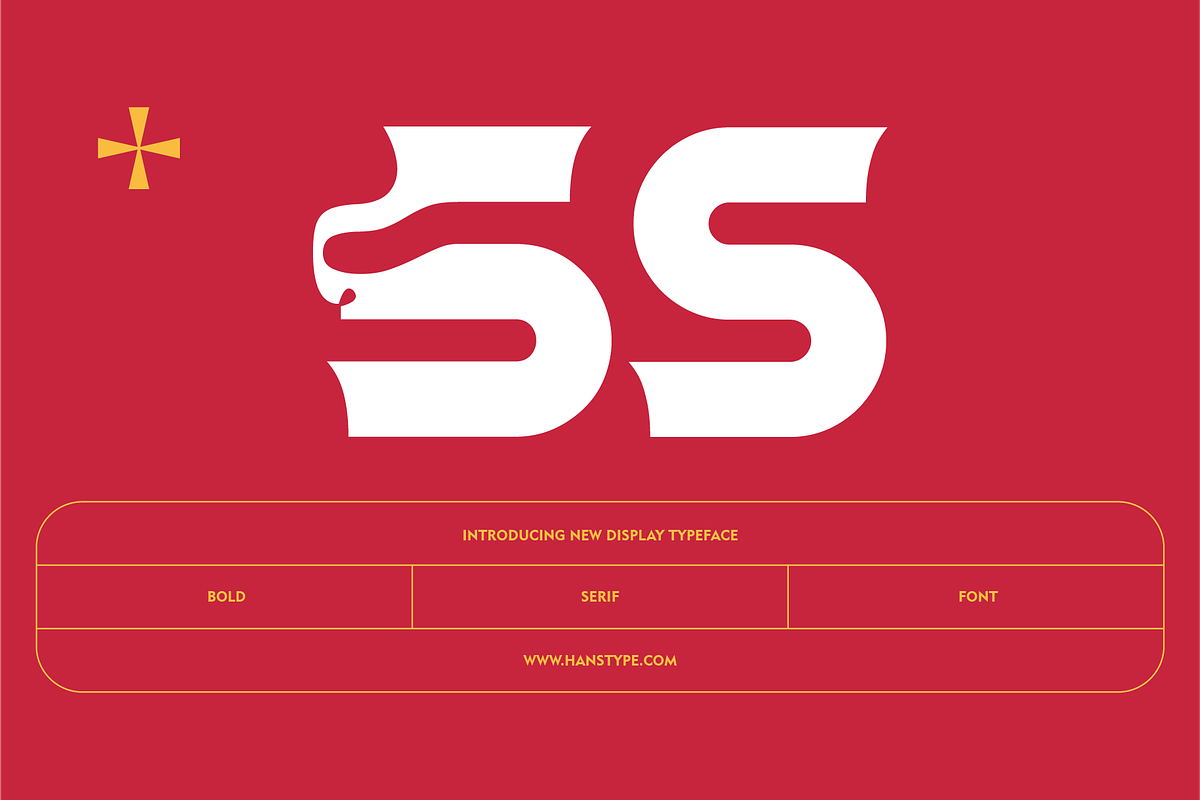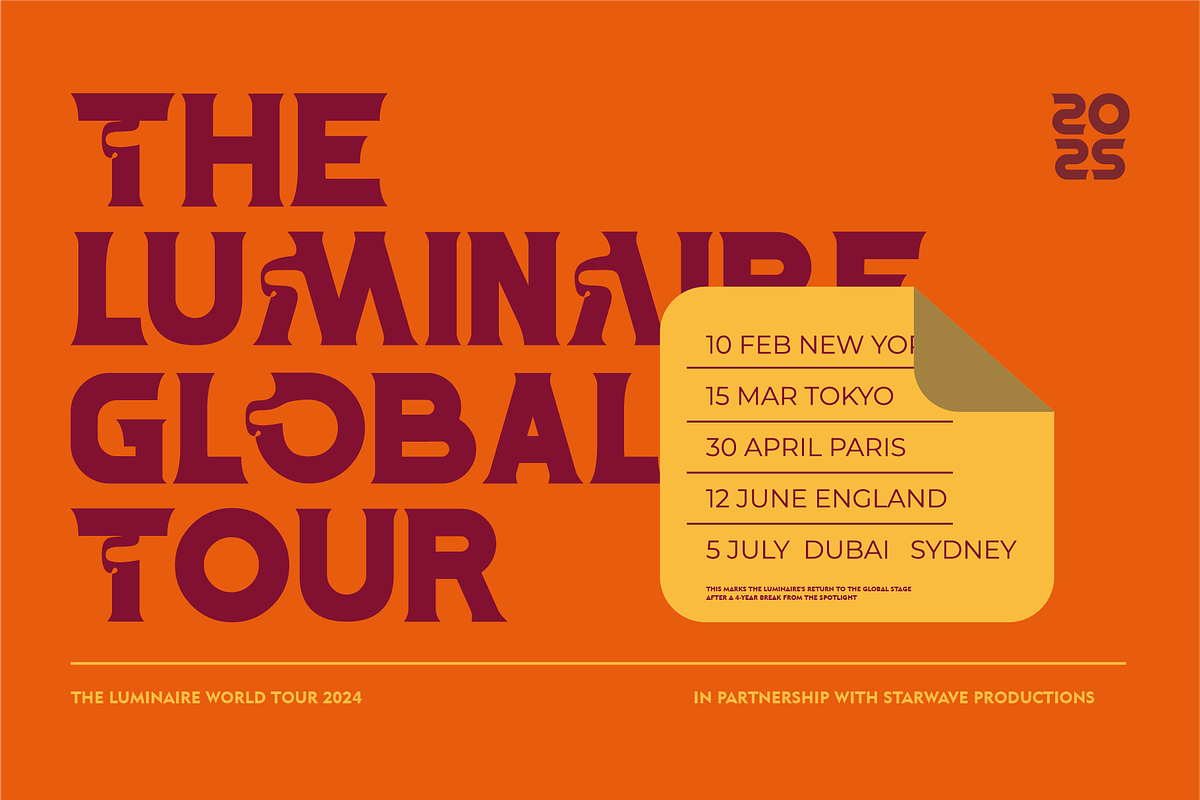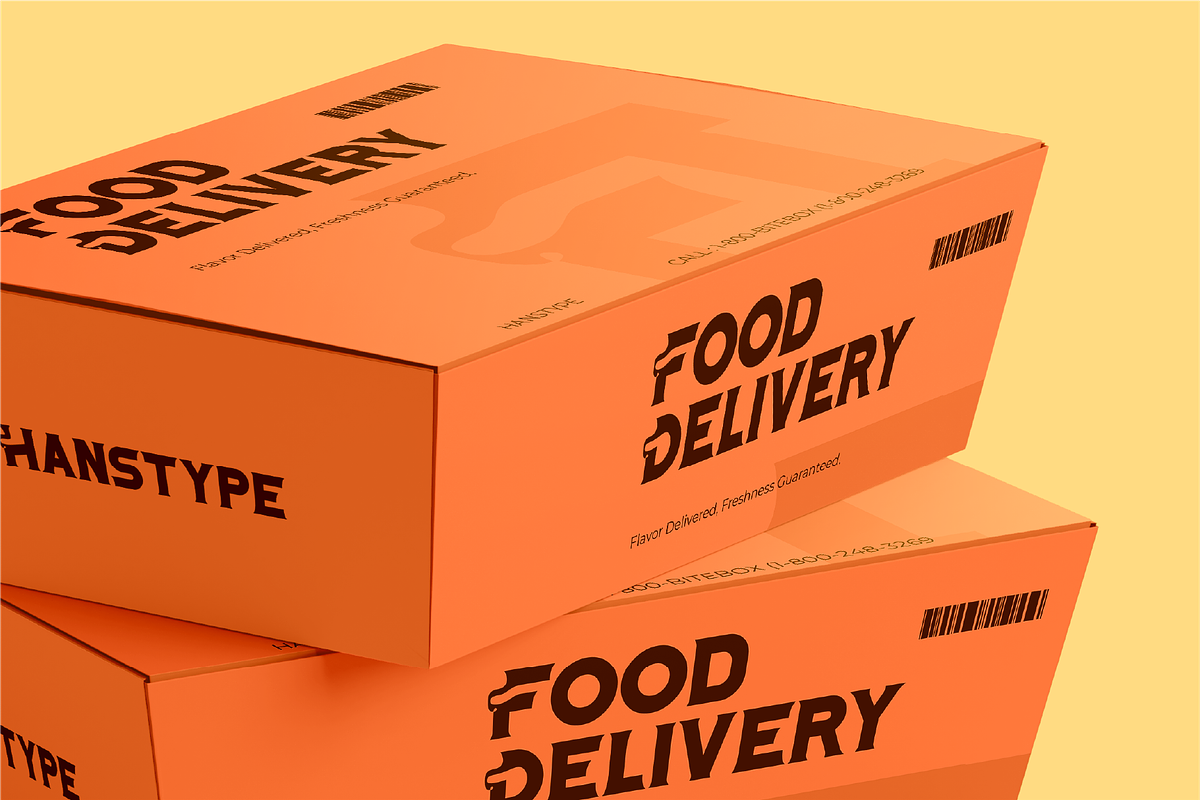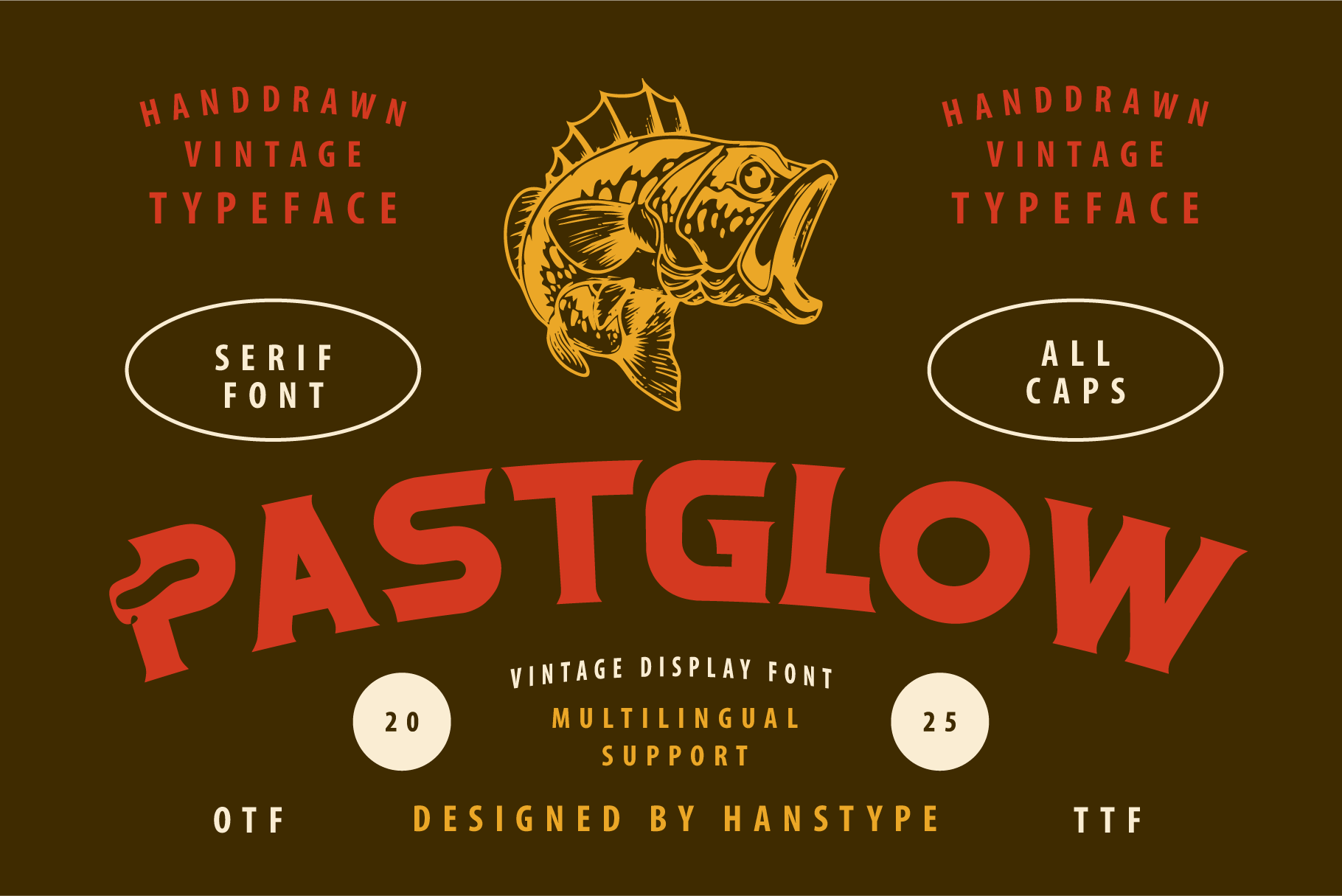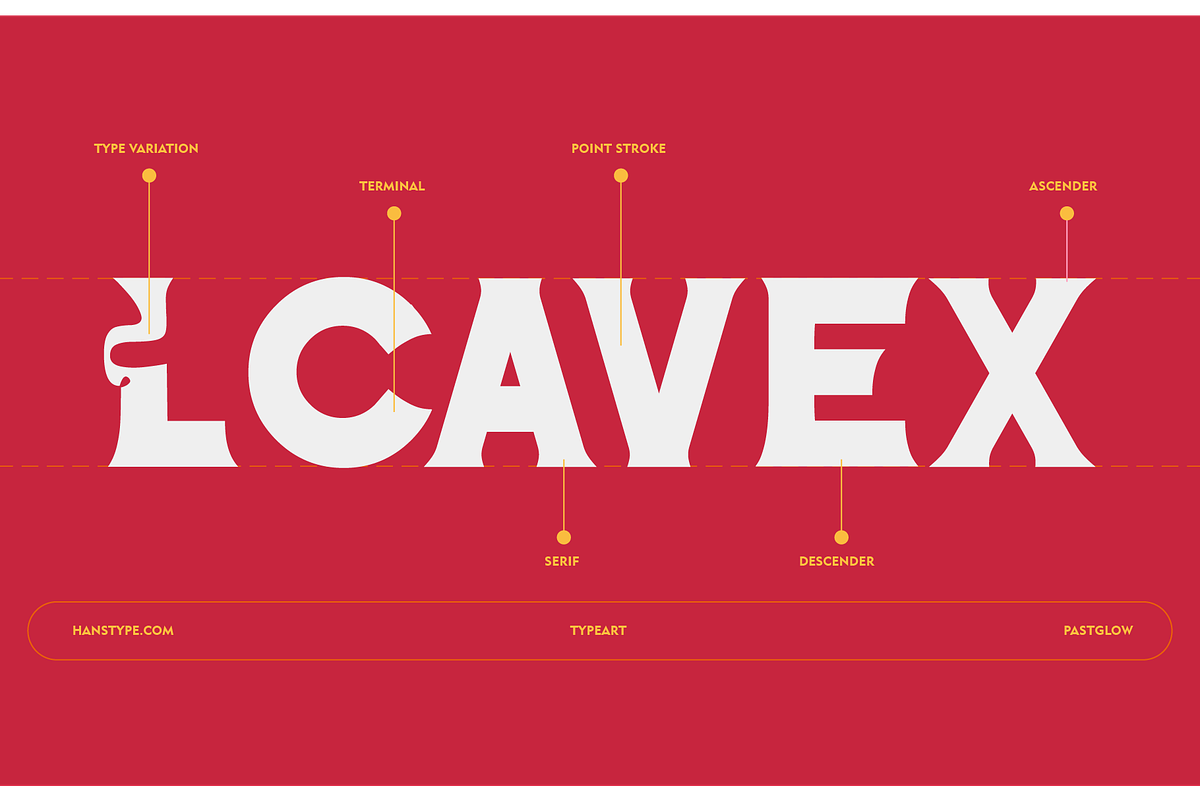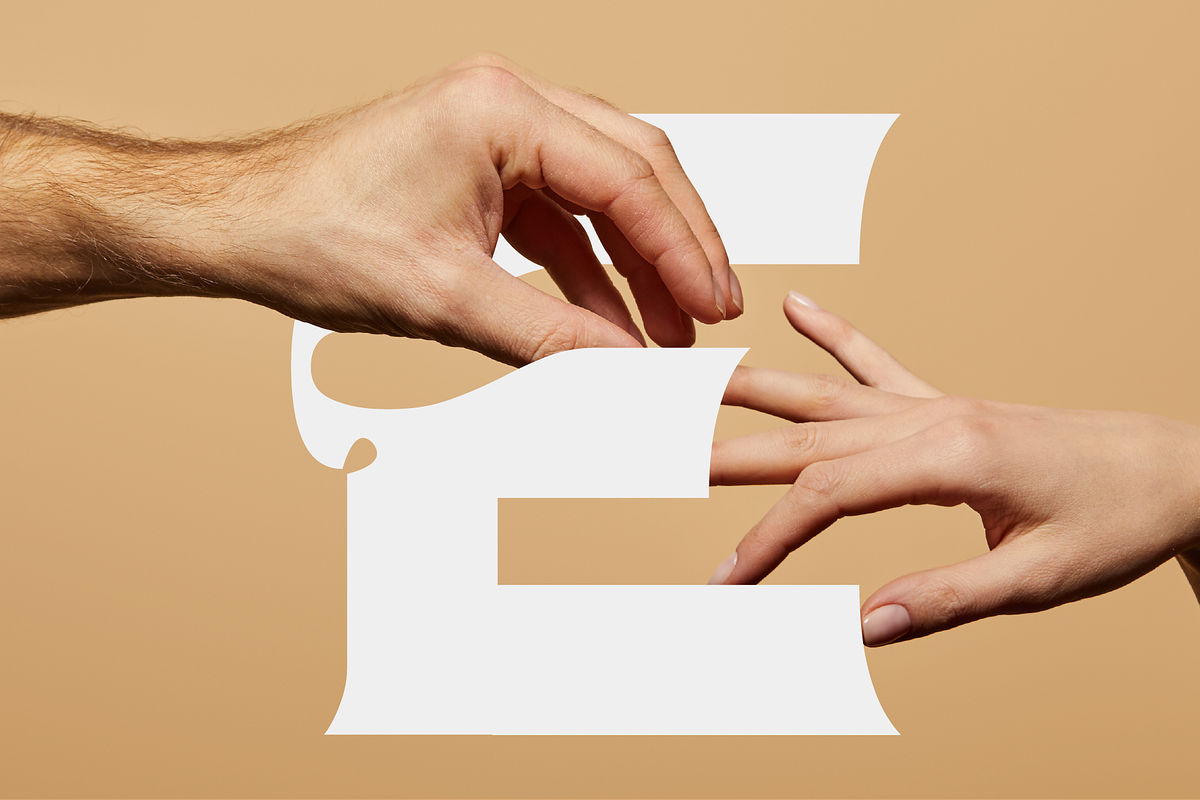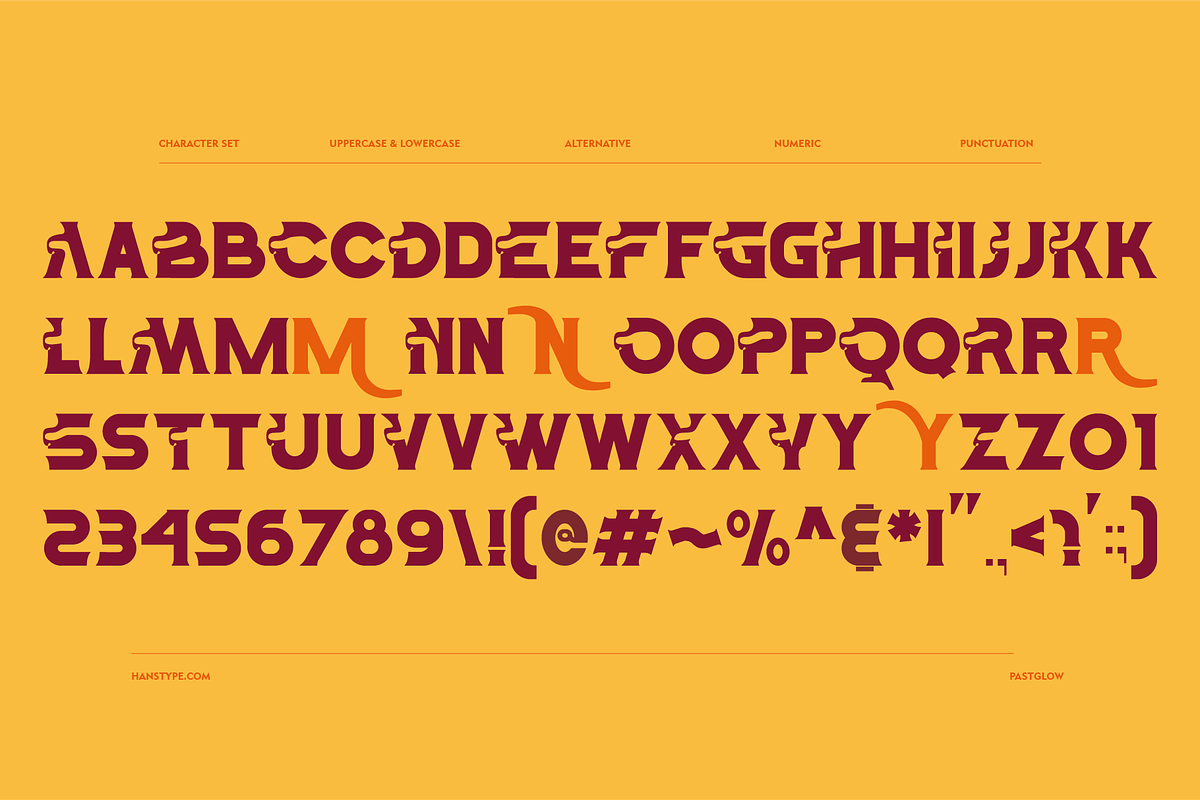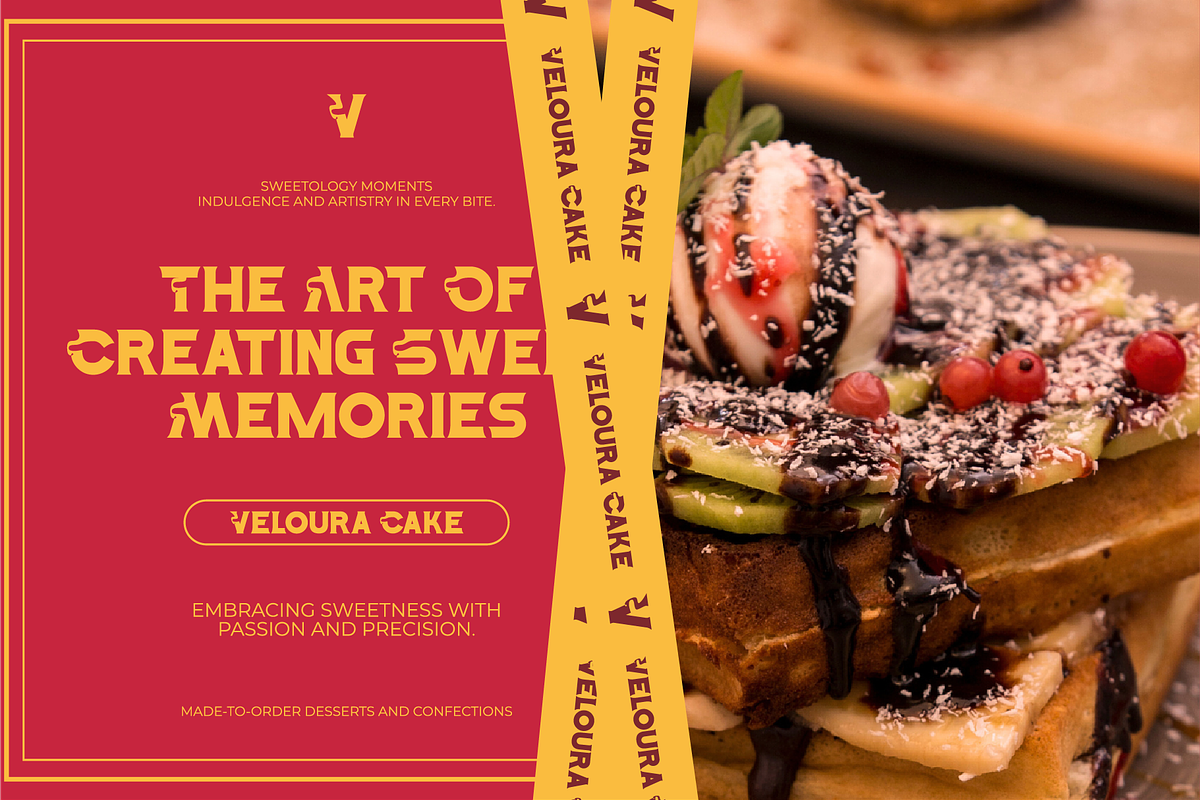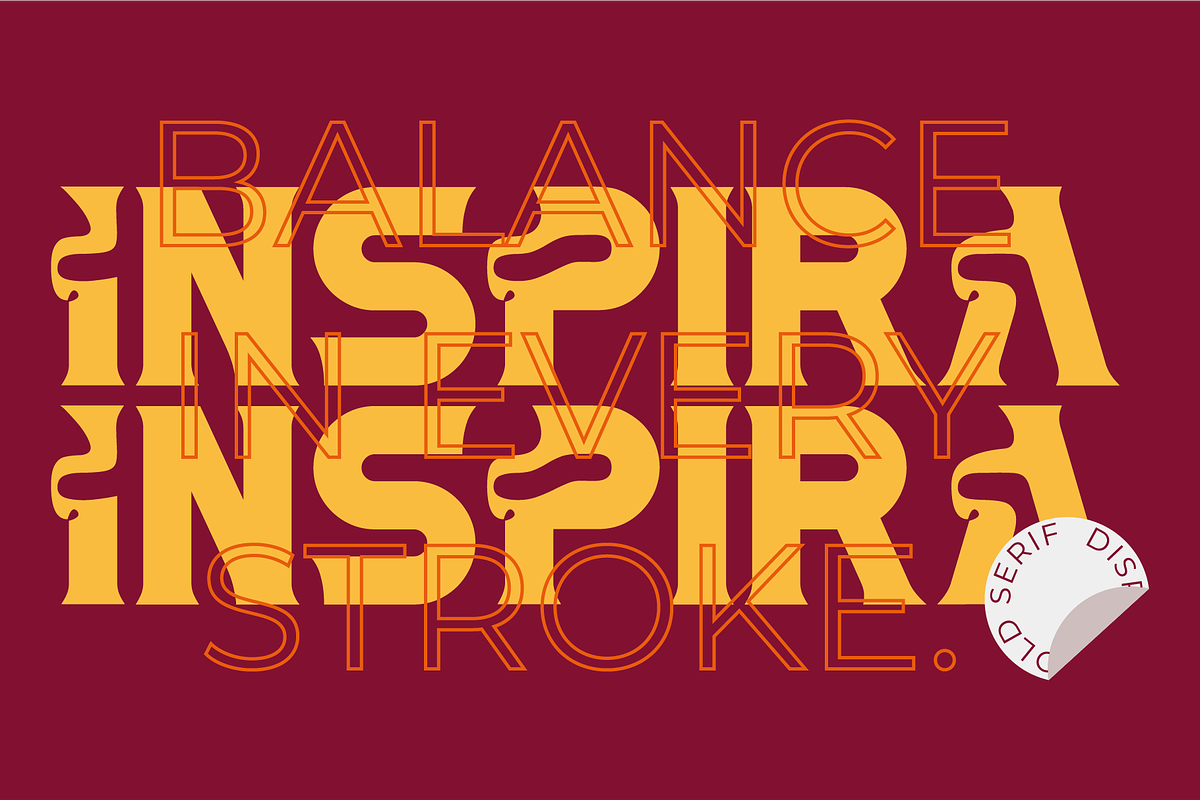
Pastglow - Serif Display Font
Pastglow is a retro display font that blends vintage elements with a modern touch. Its distinctive feature lies in the unique curves found in uppercase letters, creating a dynamic and playful feel without losing its classic charm. Each letter is crafted with balanced proportions and smooth curves that evoke a strong retro vibe, making it ideal for design projects that aim to evoke nostalgia, such as posters, logos, or packaging design. This font style draws attention with its uniqueness while maintaining high readability, making it a perfect choice for eye-catching headlines and bold branding elements.